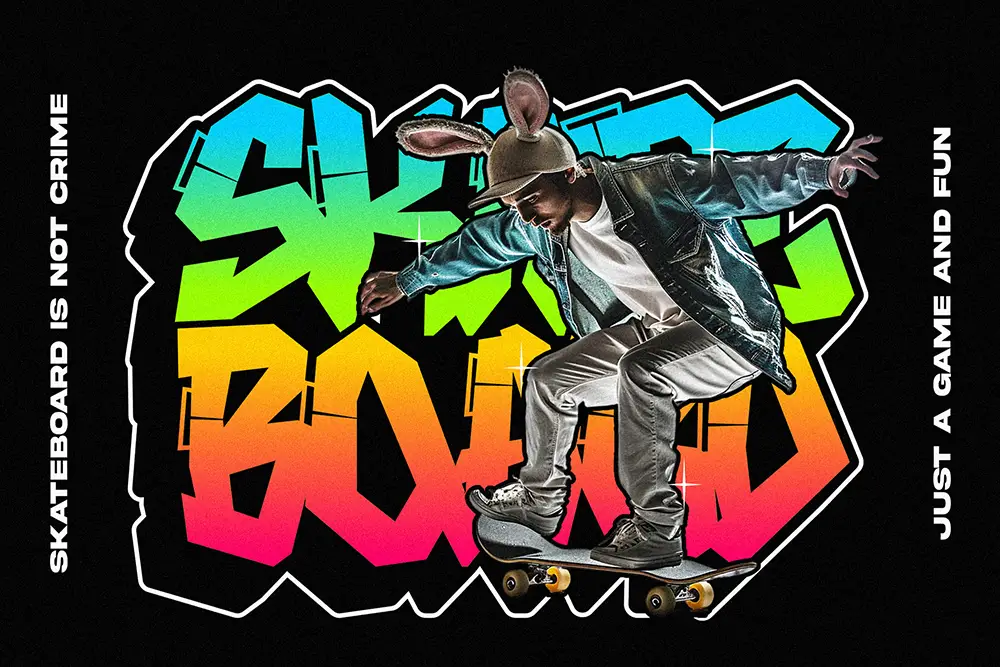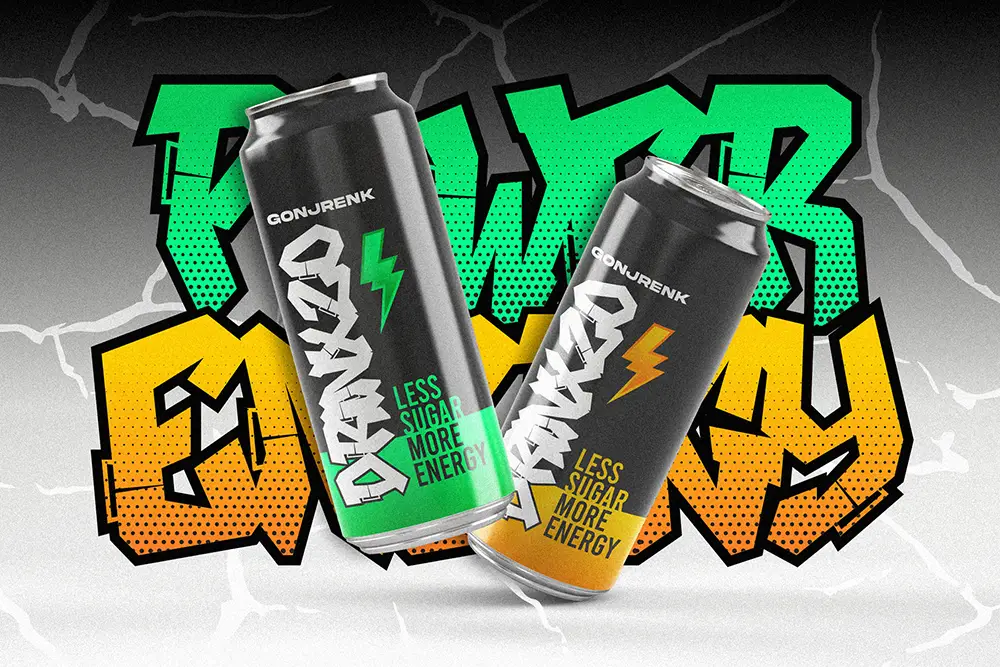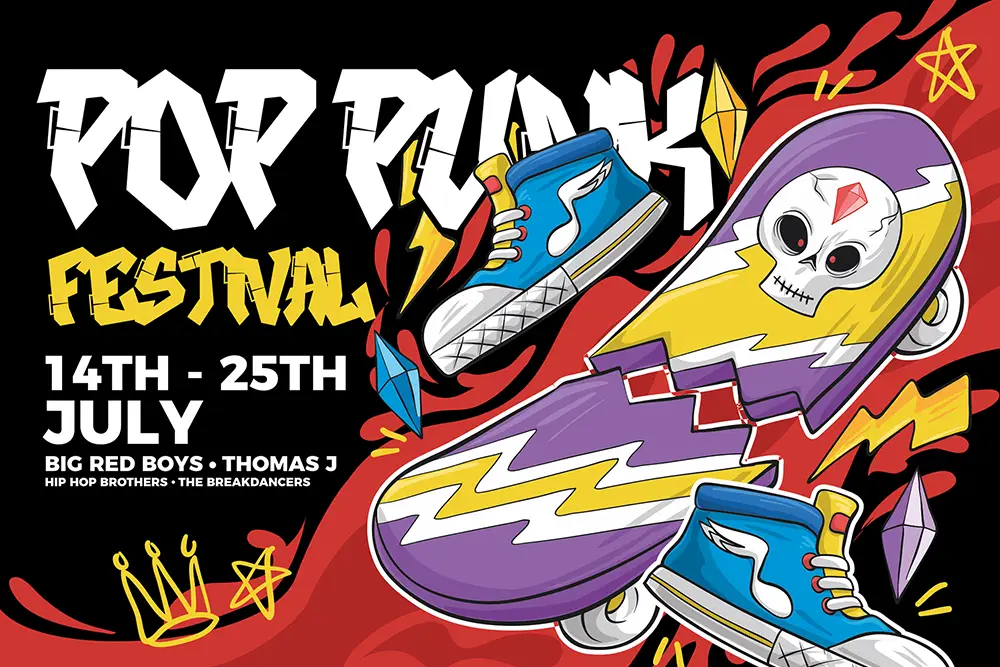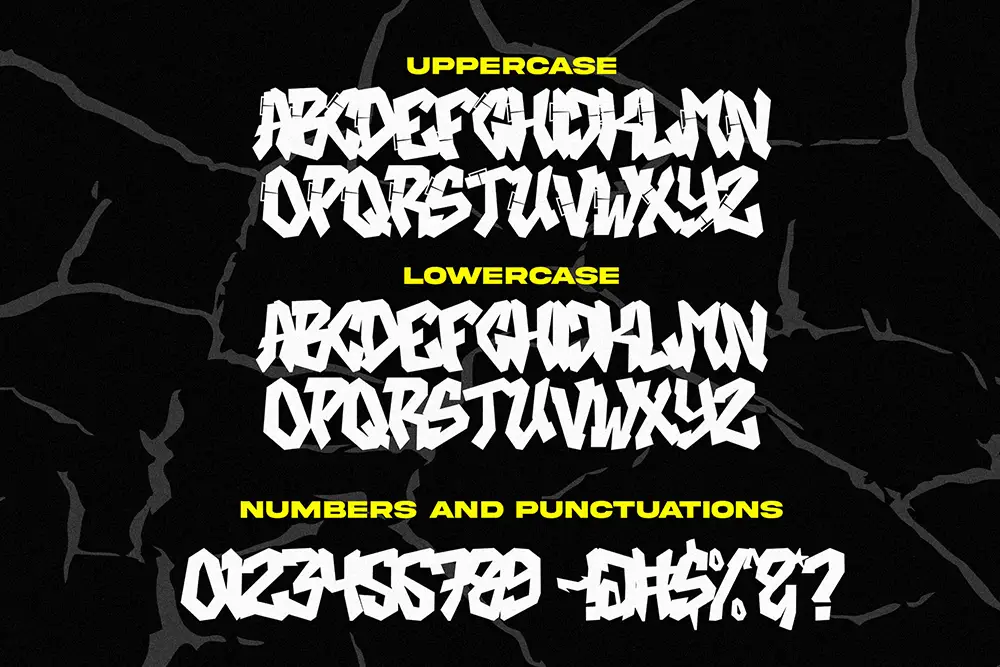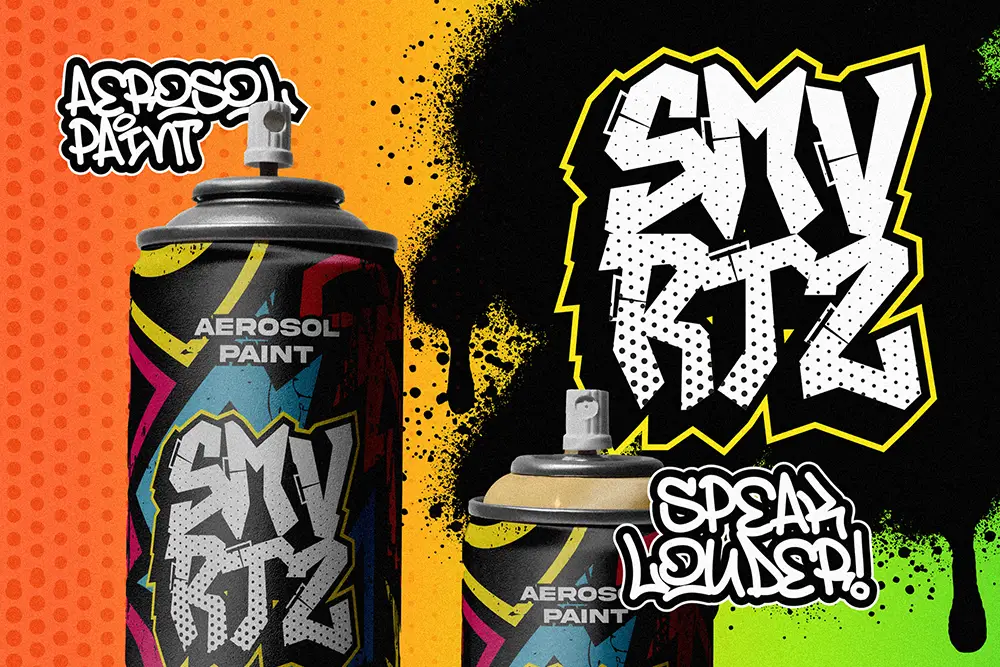
Skate Crash – Wild Graffiti Font for Bold Urban Design
Typography defines the soul of visual art, and when it comes to raw street energy, nothing captures it better than a wild graffiti font. Skate Crash – Wild Graffiti Font is a powerful, rebellious typeface built to infuse your designs with attitude, boldness, and unmistakable urban flavor.
Whether you’re designing posters, edgy logos, or event branding, Skate Crush ensures your message stands out. This wild graffiti font combines raw brush strokes with expressive details that scream individuality and authenticity.
Wild Graffiti Font with Urban Spirit
Skate Crash is more than a font—it’s a visual identity. Designed as a wild graffiti font, it represents the untamed creativity of street culture. Every letterform looks hand-sprayed and textured, bringing energy to digital and print designs alike.
From skateboarding brands to music event flyers, Skate Crush delivers raw urban authenticity. It thrives in projects where personality and edge matter most.
Key Features of Skate Crash – Wild Graffiti Font
To give designers maximum creative freedom, here are the standout features of Skate Crash – Wild Graffiti Font:
• Uppercase & Lowercase: Complete character set for versatile designs.
• Multilingual Support: Extended Latin coverage for global projects.
• Wild Graffiti Aesthetic: Raw brush strokes for authentic street vibe.
• High Impact: Works perfectly for large-scale posters, headlines, and logos.
• Urban Energy: Designed to look hand-crafted, bold, and expressive.
Why Designers Love Skate Crash
Designers around the world choose Skate Crash because it’s a wild graffiti font that balances authenticity with usability.
Here’s why it stands out:
• Authentic Graffiti Look: Every curve looks hand-painted and alive.
• Versatility: Perfect for posters, logos, merchandise, and digital campaigns.
• Creative Freedom: Its uppercase and lowercase styles allow variation in tone.
• Font Pairing Potential: Skate Crush looks stunning when paired with clean typefaces like Bolde Powerful Sans Serif, creating contrast between wild energy and modern clarity.
Skate Crash for Logos and Branding
A bold logo is the foundation of memorable branding. Skate Crush, as a wild graffiti font, is perfect for brands that want to channel rebellious spirit and creative edge.
Streetwear labels, extreme sports brands, and music companies often seek fonts that stand out from conventional typography. Skate Crush’s raw brush design makes every logo unique and attention-grabbing.
Skate Crash for Posters and Flyers
Graffiti is about grabbing attention, and Skate Crush does exactly that in posters and flyers. This graffiti font is ideal for event promotion, music festivals, skate competitions, and underground art exhibitions.
Its bold weight and energetic strokes dominate layouts, ensuring your message never gets lost in the crowd.
Wild Graffiti Font in Digital Media
Today’s design world is heavily digital, and Skate Crush shines online. This wild graffiti font brings raw energy to social media posts, YouTube titles, Twitch overlays, and banner ads.
Its multilingual support makes it usable across global campaigns. For balance, pair it with Bolde Powerful Sans Serif to combine chaotic energy with clean professionalism.
• Multilingual Support: Yes
• Category: Wild Graffiti Font / Display Font
• Best Uses: Logos, Posters, Street Art Projects, Branding, Flyers, Digital Media
Font Pairing Suggestions
Pairing is essential to maximize creative potential. Skate Crash, as a wild graffiti font, pairs beautifully with structured, modern typefaces:
• Bolde Powerful Sans Serif – balances wild graffiti strokes with clean, strong lines.
• Minimal serif fonts – create elegance alongside urban grit.
• Classic geometric sans – for branding that feels modern yet rebellious.
By combining Skate Crush with structured fonts, designers create stunning contrast and depth.
Why Skate Crash is the Wild Graffiti Font You Need
Graffiti design isn’t about perfection—it’s about energy and attitude. Skate Crash embodies both, making it a must-have wild graffiti font for designers who want to express individuality and rebellion in their projects.
With OTF, TTF, and WOFF formats, uppercase/lowercase, and multilingual support, it’s a versatile typeface that works across all platforms. Whether used for logos, posters, or digital branding, Skate Crash makes every project stand out.
Skate Crash – Wild Graffiti Font is a celebration of creativity without limits. Its bold strokes, authentic graffiti energy, and urban vibe make it a powerful design weapon.
If your project demands personality, attitude, and strength, Skate Crash is the font to choose. Pair it with Bolde Powerful Sans Serif for balance, or let it shine on its own.
Don’t just design—make a statement. With Skate Crush, every project becomes unforgettable.